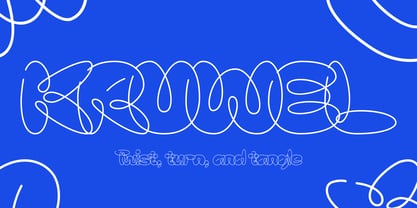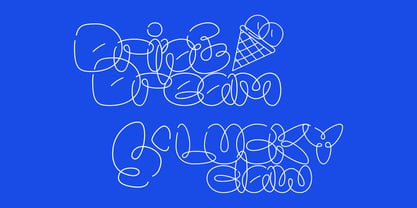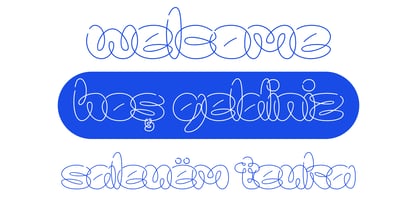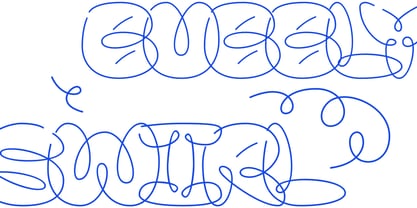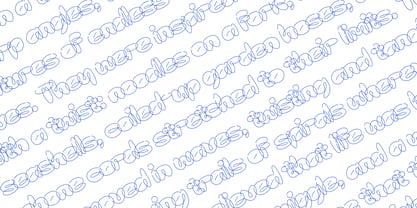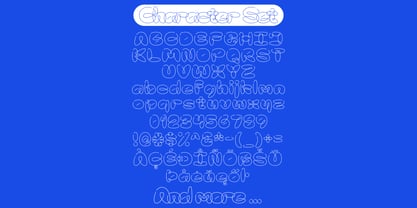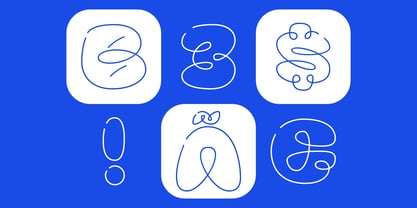
KGT Kruwel
by Kogitutype
The KGT Kruwel Font Family was designed by Rioniga Zandy and published by Kogitutype. KGT Kruwel contains 1 styles. More about this family
Meet our newest font, KGT Kruwel: a lively, looping display type that brings a sense of whimsy and rhythm to any design. Each letter curls, overlaps, and flows into the next, creating a continuous, hand-drawn look that’s packed with personality. This monoline outline style is perfect for projects that want to make a fun, memorable impact—think logos, packaging, event posters, or any design where you want the text to take center stage.
Designers: Rioniga Zandy
Foundry: Kogitutype